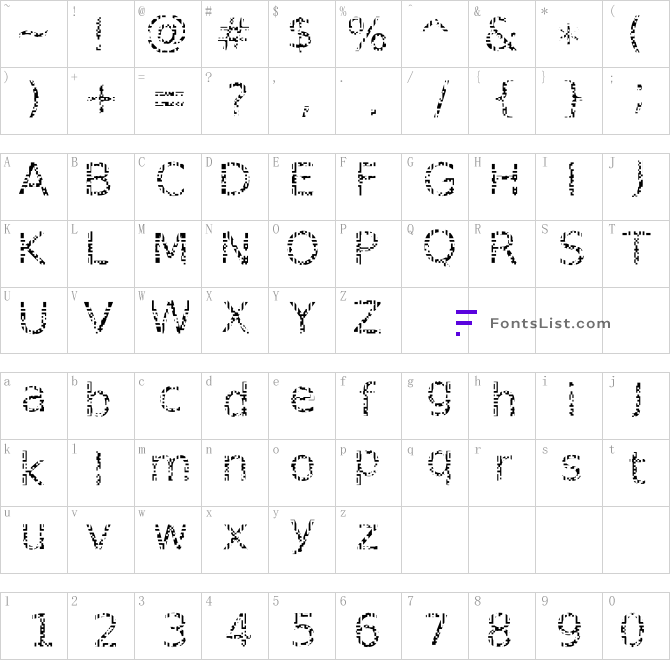
AGLRY-1.ttf is a very beautiful artistic font, AGLRY-1.ttf is widely used in the design and printing of various books and pictures,AGLRY-1.ttf has a strong visual impact,AGLRY-1.ttf is a commonly used font in newspapers, magazines and books, and is used in posters, e-commerce Poster design, store design, logo design, font design and other fields.AGLRY-1.